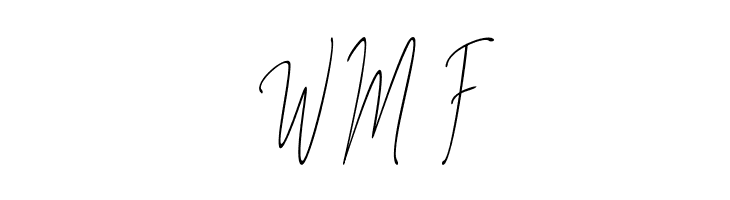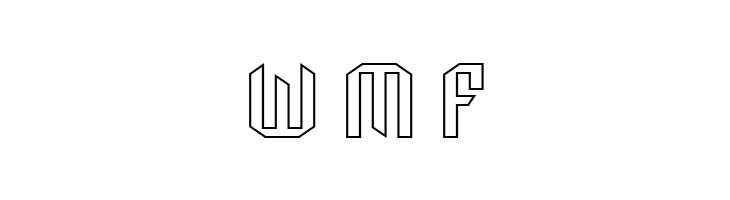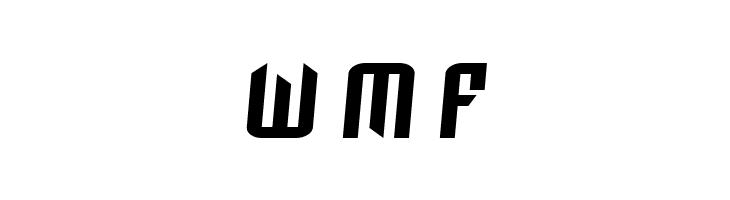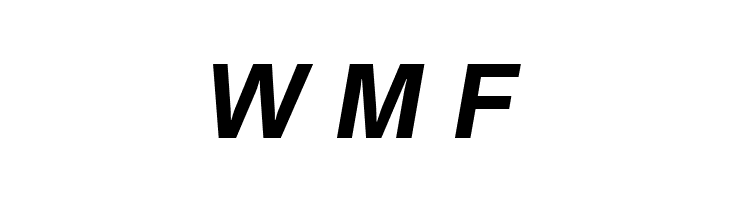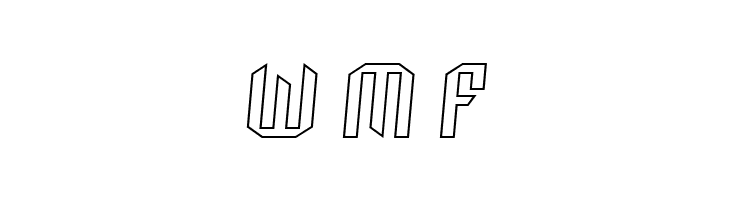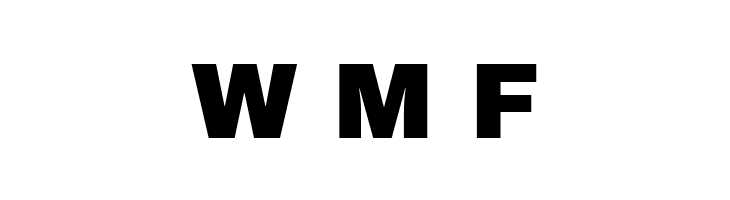
A graceful, cursive handwritten font with a modern calligraphic style.
A bold, geometric font with a modern, condensed style.
A bold, modern sans-serif font with a strong, impactful presence.
A bold, modern typeface with strong, clear characters and consistent stroke width.
A bold, modern sans-serif font with clean lines and strong readability.
A modern, bold, and italicized typeface with a clean and dynamic style.